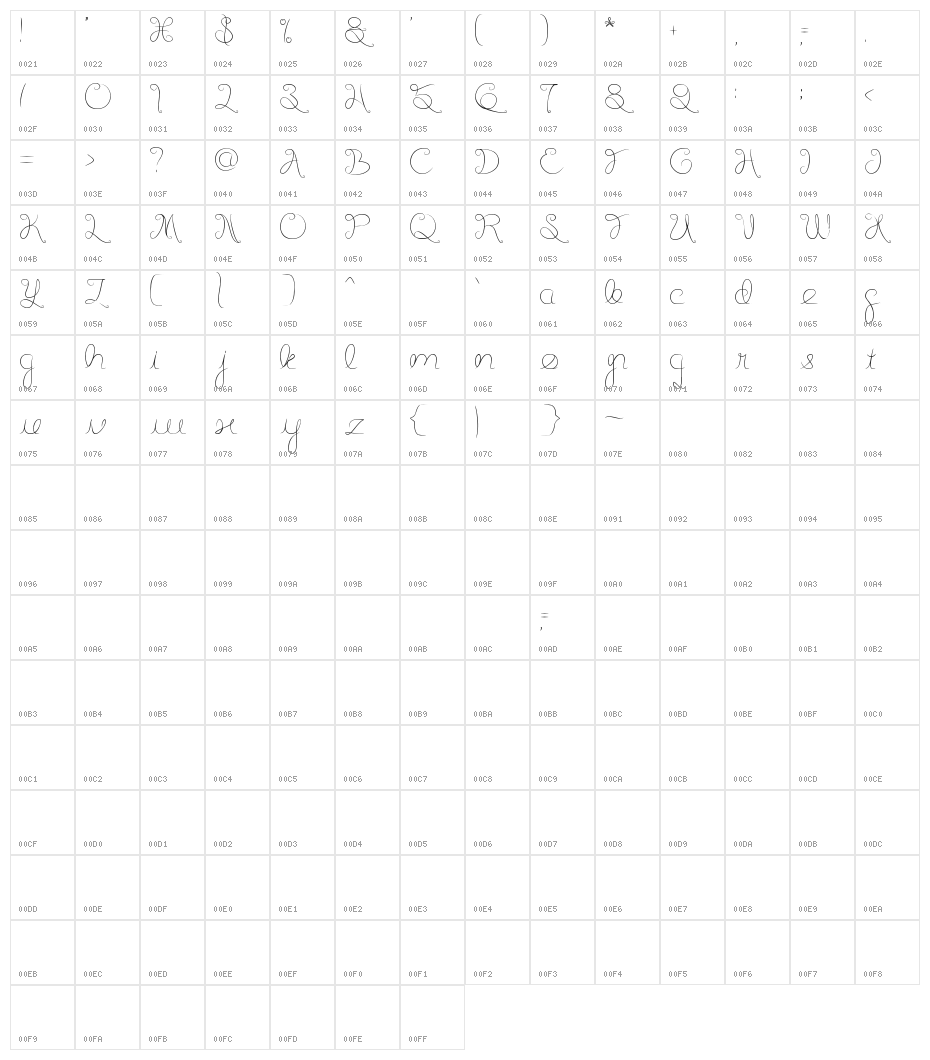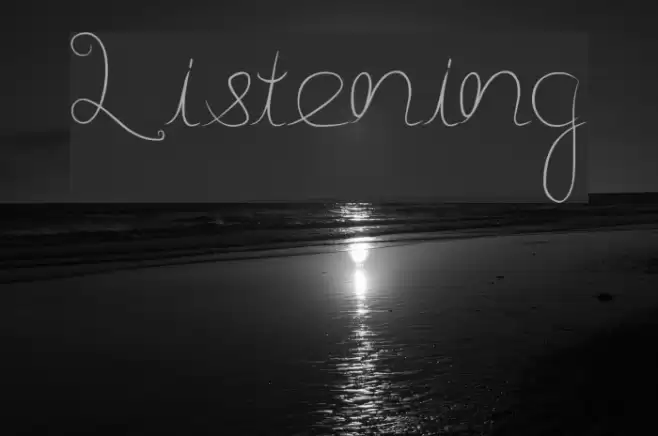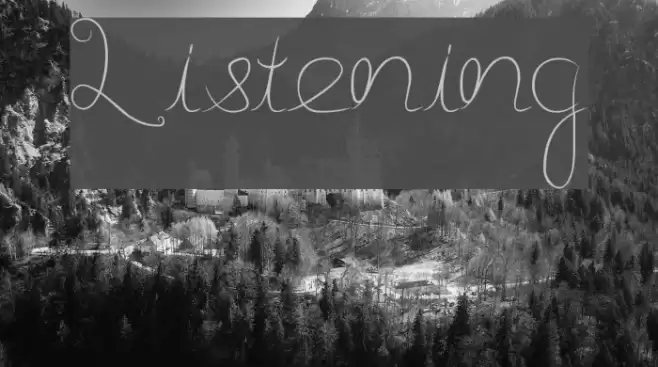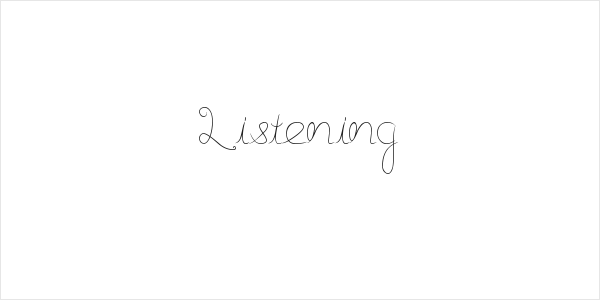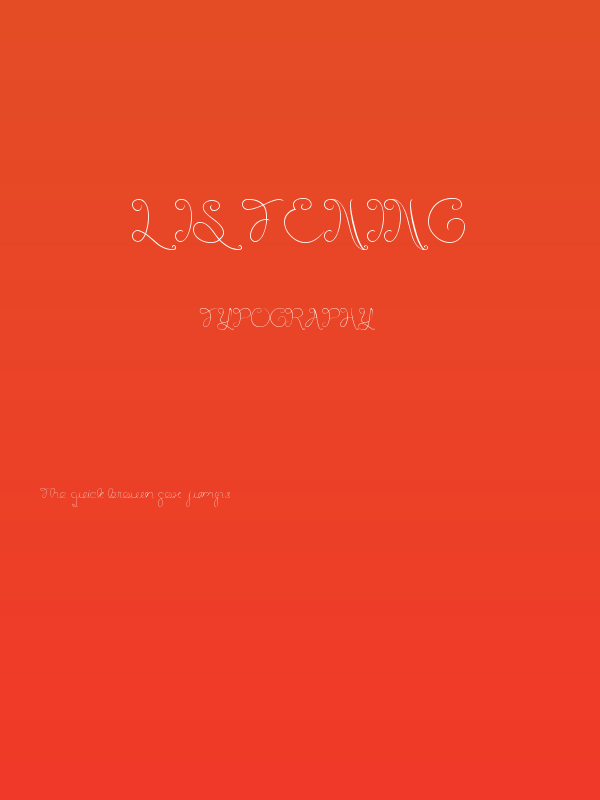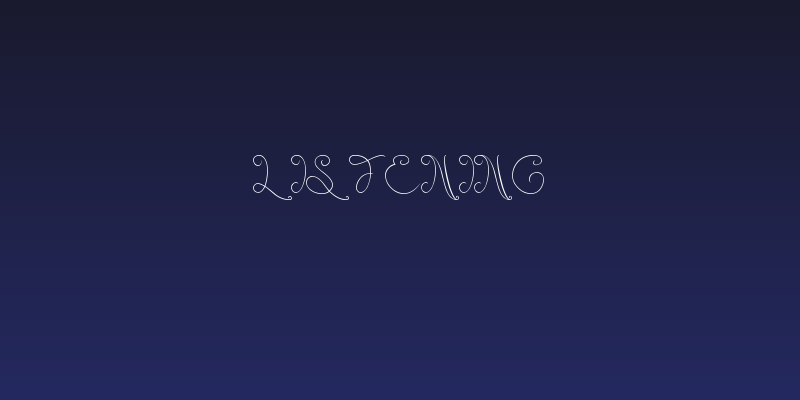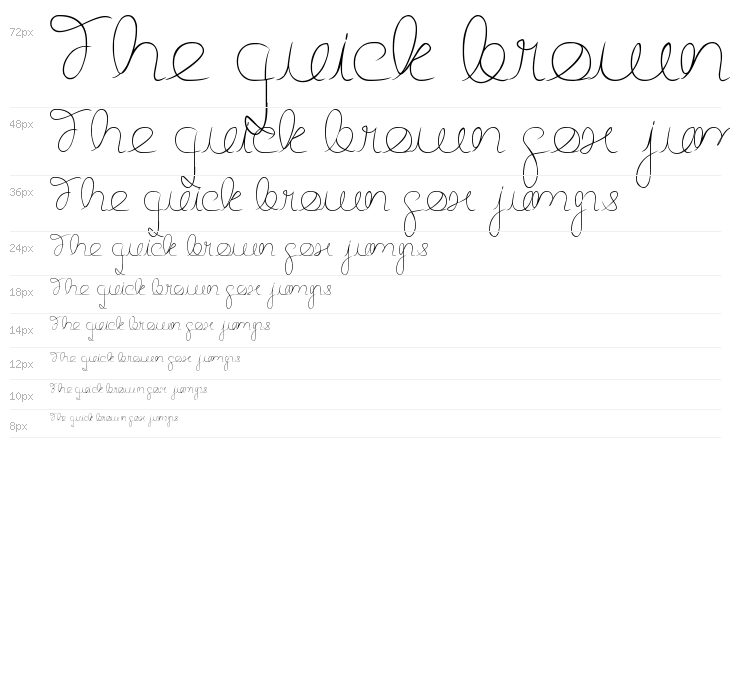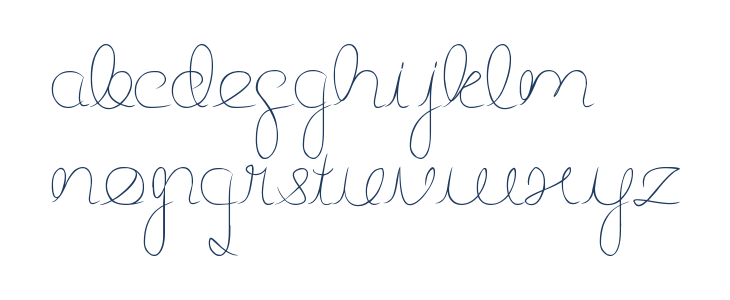
Listening Font
Listening Description
This font features an elegant, flowing script style with delicate, swirling lines and intricate loops. Each character is crafted with a sense of fluidity and grace, making it ideal for designs that require a touch of sophistication and charm. The uppercase letters are particularly ornate, with extended flourishes that add a decorative element. The lowercase letters maintain a consistent style, ensuring readability while still offering a unique aesthetic. Numbers and special characters are designed to match the overall style, providing a cohesive look across all elements.